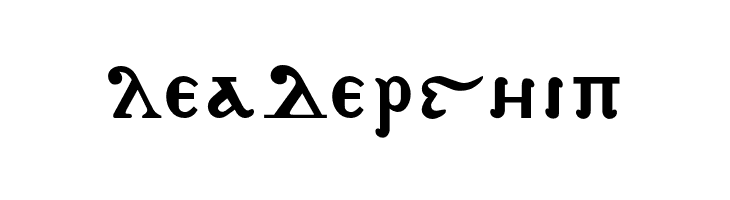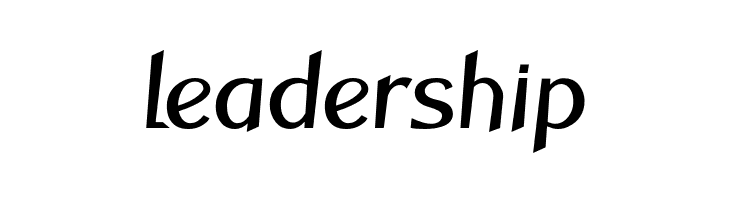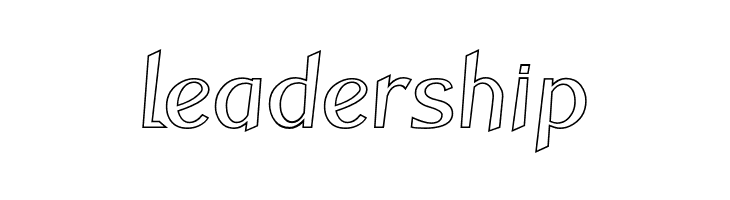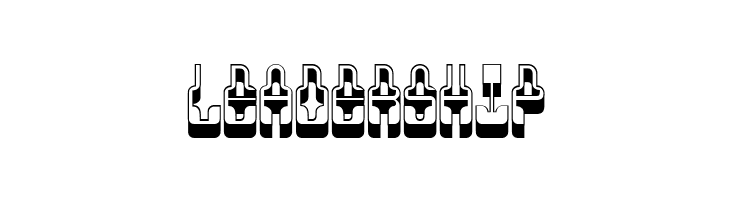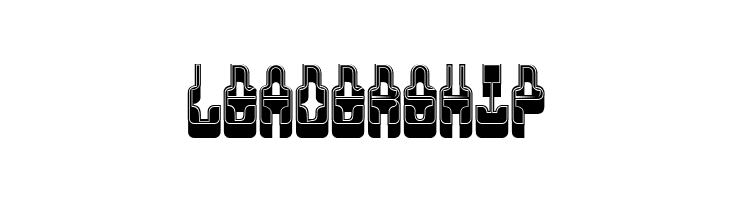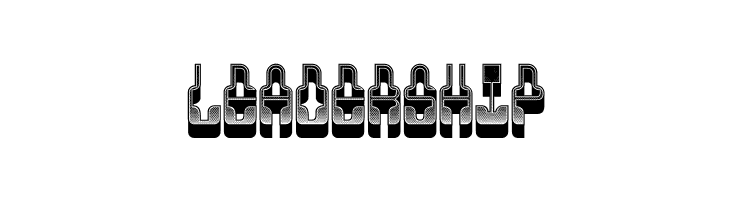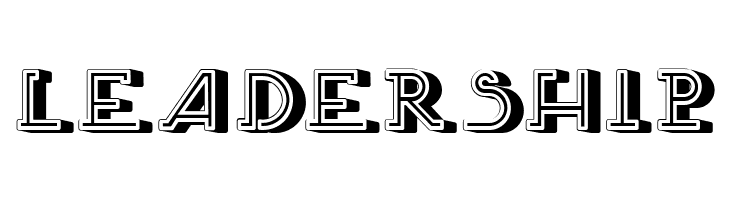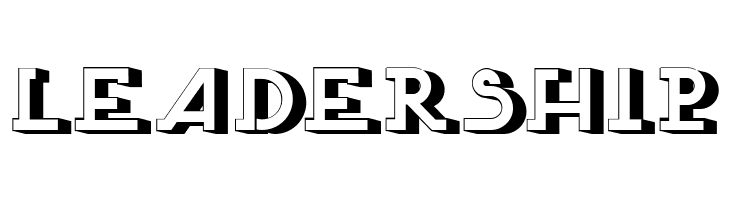
• Ataro
A dynamic, slightly italicized font with sharp, angular strokes and a modern flair.
• AtaroOutline
A modern, outlined font with geometric structure and consistent stroke width.
• ATAvalaqus
A bold, decorative font with vintage and ornate characteristics.
• Atelier du Machiniste
An elegant, cursive font with bold, sweeping uppercase letters and smooth, decorative lowercase characters.
• Atelier Omega
A sophisticated and elegant script font with ornate uppercase letters and smooth, readable lowercase letters.
• Atelier Omega_PersonalUseOnly
An elegant and decorative script font with flowing, ornate letterforms.
• AthaarDemo-Italic
A futuristic, geometric font with a three-dimensional layered effect.
• AthaarDemo-Regular
A futuristic, geometric font with bold, segmented lines and a tech-inspired look.
• Athain Regular
A bold, expressive script font with fluid strokes and elegant curves.
• Athain-Regular
A bold, flowing script font with elegant curves and medium contrast.
• AthaliaScriptDemo
An elegant and flowing script font with a classic, sophisticated style.
• Athanasius-D
A bold, decorative font with intricate curves and sharp edges.
• Atheist College Regular
A bold, collegiate-style font with strong serifs and a layered, outlined design.
• Atheist Regular
A bold, three-dimensional font with a strong shadow effect and geometric style.
• Athena
An angular, hand-drawn font with sharp, jagged lines and a modern, edgy style.
• Athena
A bold, elegant script font with flowing, cursive letterforms.
• Athena - Personal Use
A cursive, handwritten-style font with elegant, flowing strokes.
• Athena of theOcean
An elegant script font with ornate swashes and flowing curves.
• Athena Regular
A fluid and elegant script font with a cohesive cursive style.
• Athena River
A modern, elegant handwritten font with fluid, cursive letterforms.